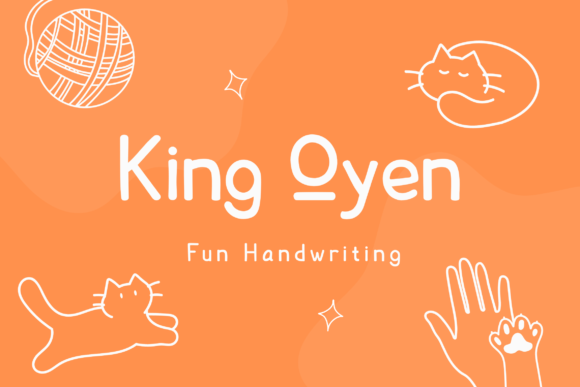
The Perfect Pen Stroke: Unveiling the King Oyen Font
There’s something magical about a blank page, waiting for the stroke of your pen to bring a story to life. As creatives, we’ve all been there – staring at a blank canvas, searching for the perfect font to set the tone for our project. And then, it happens – you stumble upon a font that speaks to you, a font that becomes the foundation of your masterpiece.
For designers, the King Oyen Font is a treasure trove of inspiration. This beautiful, handwritten font boasts modern letter design and a natural, approachable feel that makes it a friendly and attractive choice for any project. Whether you’re working on a logo, a brochure, or a social media campaign, the King Oyen Font is the perfect companion to bring your vision to life.
With its simplicity and charm, the King Oyen Font is a valuable asset for designers looking to add a personal touch to their work. Its versatility makes it a go-to choice for a wide range of creative projects, from elegant wedding invitations to playful social media graphics.
King Oyen Font Key Features
- Font Family: King Oyen is a sans-serif font family.
- Unique Characteristics: King Oyen features a clean, modern design with a unique blend of geometric and organic elements, making it suitable for a wide range of design applications.
King Oyen Font Review
After delving into the world of fonts, I stumbled upon King Oyen Font, a stunning addition to any design project. Let’s dive into its strengths and weaknesses.
- Unique blend of elegance and sophistication: King Oyen Font exudes a sense of luxury, perfect for high-end branding and corporate designs.
- Effective for long-form content: Its readability makes it ideal for articles, blog posts, and other forms of written content.
- Excellent for headings and titles: The font’s flair and drama add a touch of sophistication to any heading or title.
- Limited versatility: King Oyen Font may not be suitable for every design project, especially those requiring a more playful or casual tone.
- May not work well in smaller font sizes: While readable at larger sizes, the font may become difficult to decipher in smaller font sizes.
King Oyen Font is a solid choice for designers seeking a sophisticated, elegant font. While it may have its limitations, its unique blend of style and readability makes it a great addition to any design arsenal. I’d recommend it for projects requiring a touch of luxury and sophistication.
For the best results, use King Oyen Font in conjunction with bold or italic styles to add emphasis. Experiment with different font sizes and colors to create visual interest.
King Oyen Font is ideal for:
- Logo design and branding.
- Business cards and brochures.
What is the recommended font size for King Oyen?
The recommended font size for King Oyen varies depending on the application and intended use. However, as a general guideline, we recommend using font sizes between 12pt and 24pt for body text, and 48pt or larger for headings and titles.